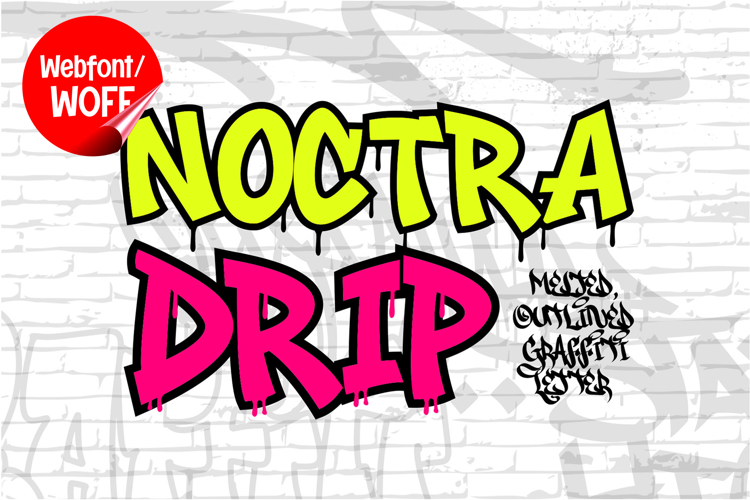
Noctra Drip | Melted & Outlined Graffiti Webfont
Noctra Drip is a dripping and outlined graffiti webfont designed to bring raw street-art energy and bold urban aesthetics into modern website design. Inspired by spray-paint drips, outlined throw-up graffiti, and underground tagging culture, this font features expressive shapes combined with dripping details and strong outlines that create a rebellious and eye-catching visual identity. It is an excellent choice for projects that aim to deliver authentic graffiti visuals with maximum impact and creative street-style character.
Noctra Drip includes a complete set of uppercase characters designed with dripping and outlined graffiti aesthetics. The letterforms feature bold curves, layered outlines, and fluid drip effects that create a dynamic urban appearance inspired by real street murals and freestyle graffiti tags. These characteristics make it ideal for headlines, banners, hero sections, promotional graphics, and featured content where strong urban visuals are needed.
In addition to letters, the font includes numbers and punctuation, allowing flexible usage across various parts of a website. It works well for streetwear branding, gaming websites, music platforms, hip hop projects, esports graphics, and creative portfolios. Each character maintains a consistent graffiti outline style, ensuring a cohesive and unified visual identity throughout the design.
With multilingual support, Noctra Drip includes a wide range of accented characters, making it suitable for international websites and global audiences. This ensures content remains clear and visually consistent across different languages while preserving the expressive and urban graffiti aesthetic.
The dripping and outlined graffiti style of Noctra Drip makes it especially suitable for urban-themed websites, entertainment campaigns, youth-oriented branding, and creative digital projects. Its outlined structure and dripping effects create a powerful street-art atmosphere that helps websites stand out in visually competitive environments. The graffiti-inspired forms add movement, intensity, and authentic underground character.
Despite its decorative and highly expressive appearance, Noctra Drip is designed with readability in mind. The spacing and proportions are carefully balanced to ensure clarity, particularly in display sizes. This allows designers to use the font effectively for impactful headings and short content without sacrificing usability.
Noctra Drip is a webfont that combines dripping graffiti aesthetics with outlined street-art styling and modern digital performance. Its bold forms, expressive drip details, and urban character create a distinctive typographic presence that enhances website design. For projects that require a strong, edgy, and visually engaging graffiti font, Noctra Drip offers a versatile and powerful solution.